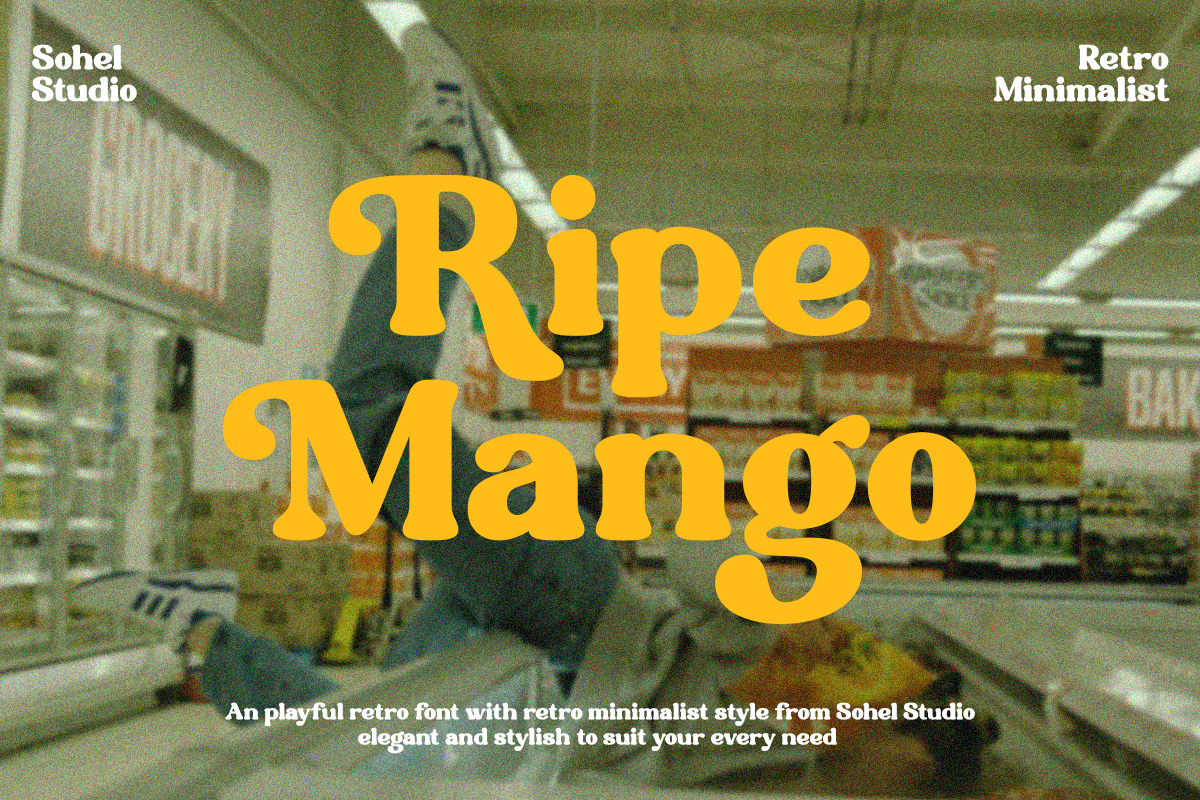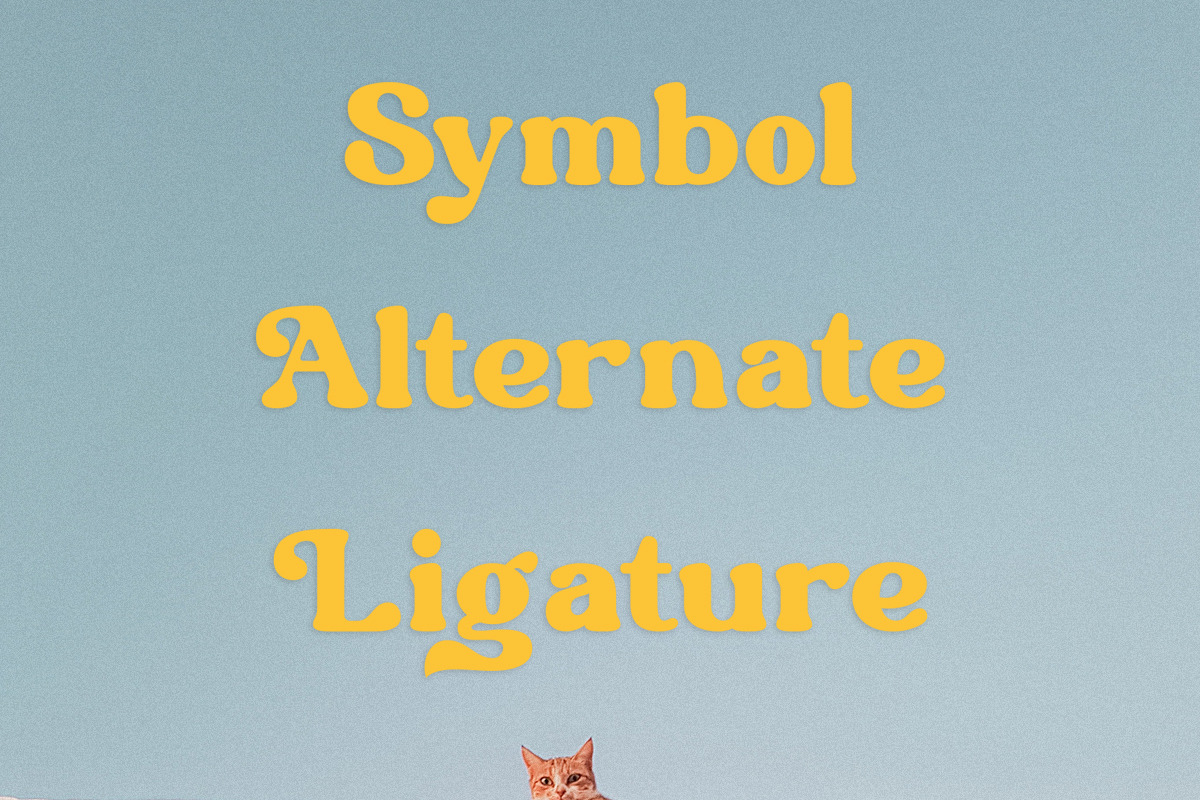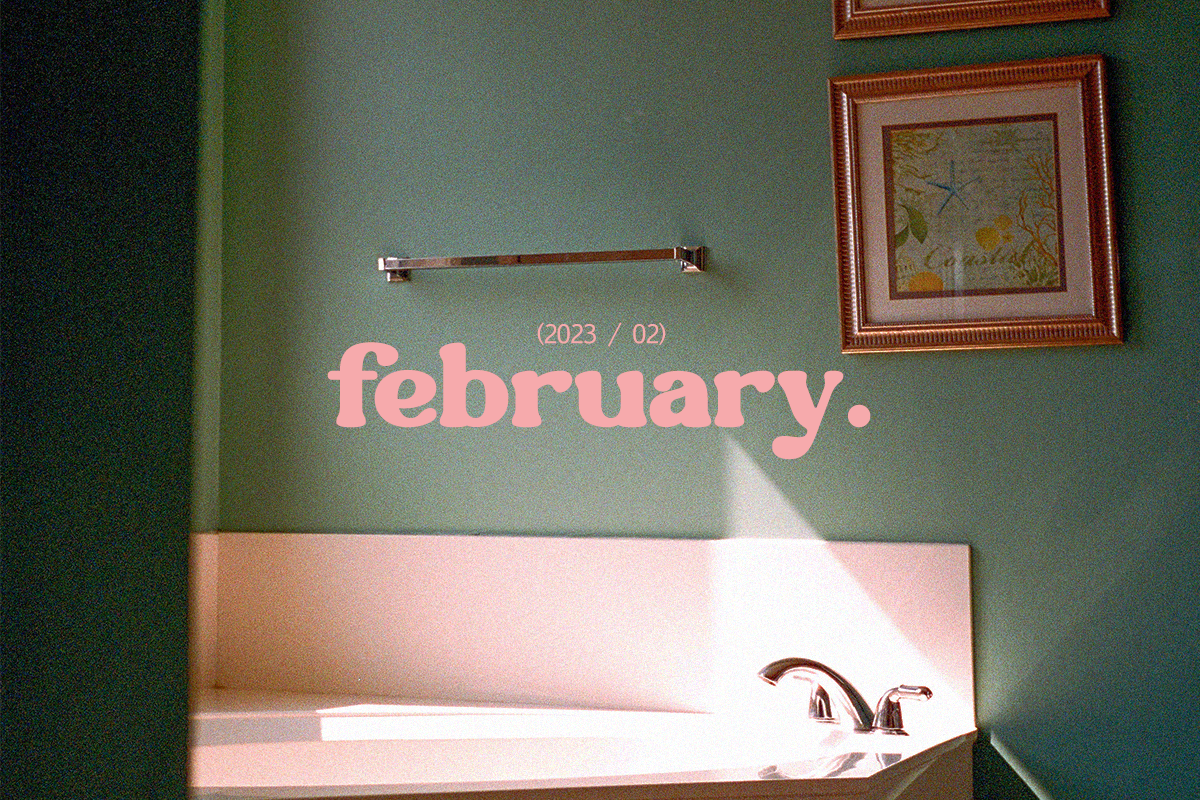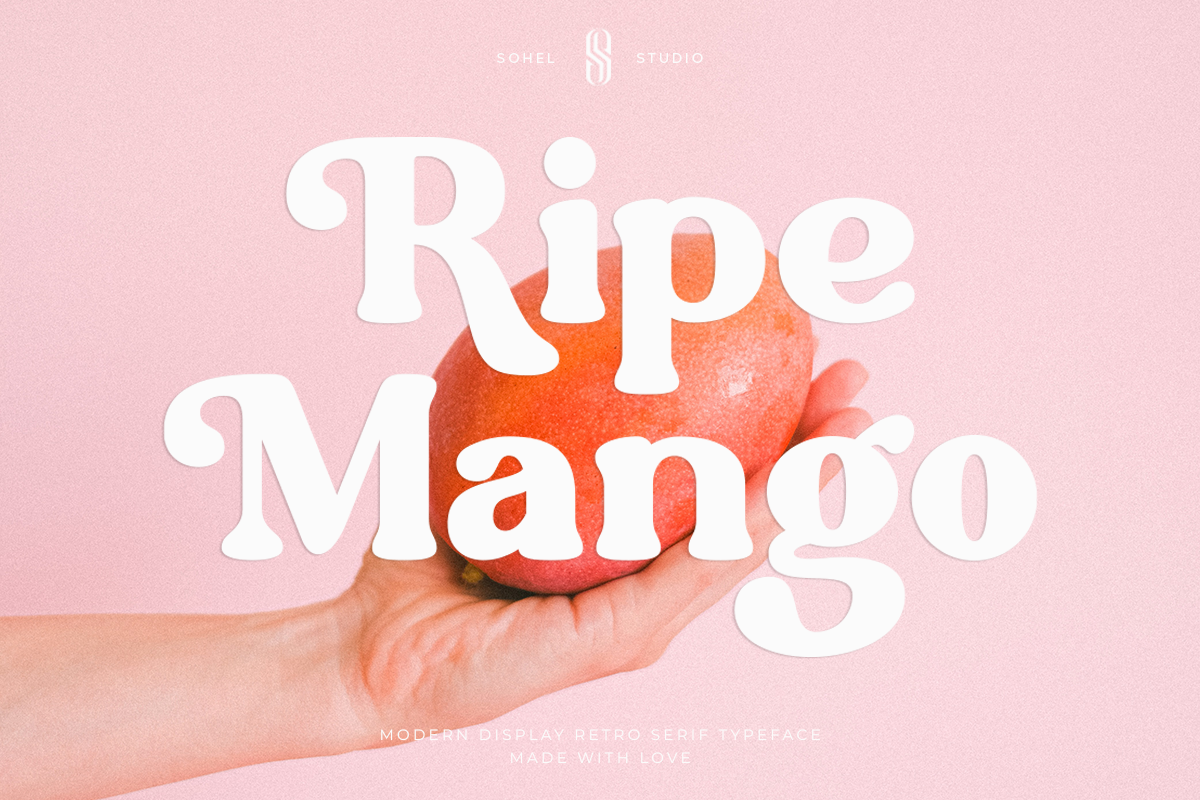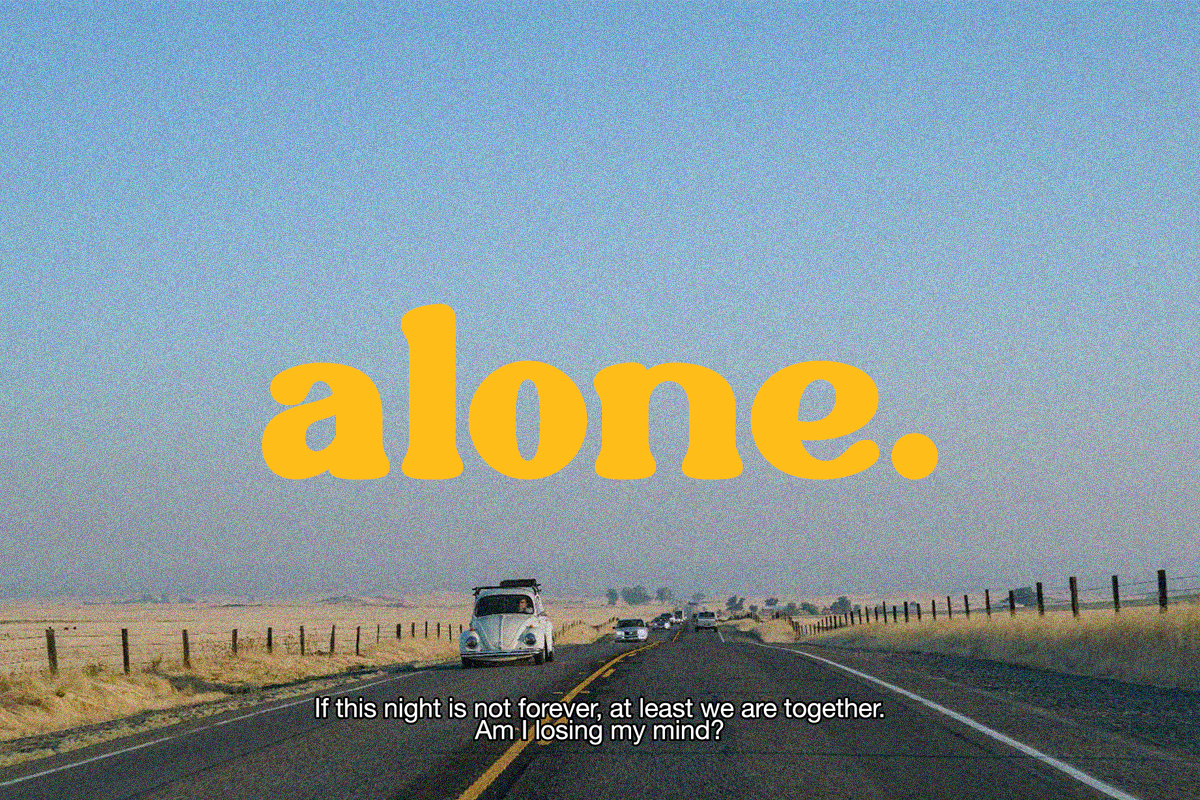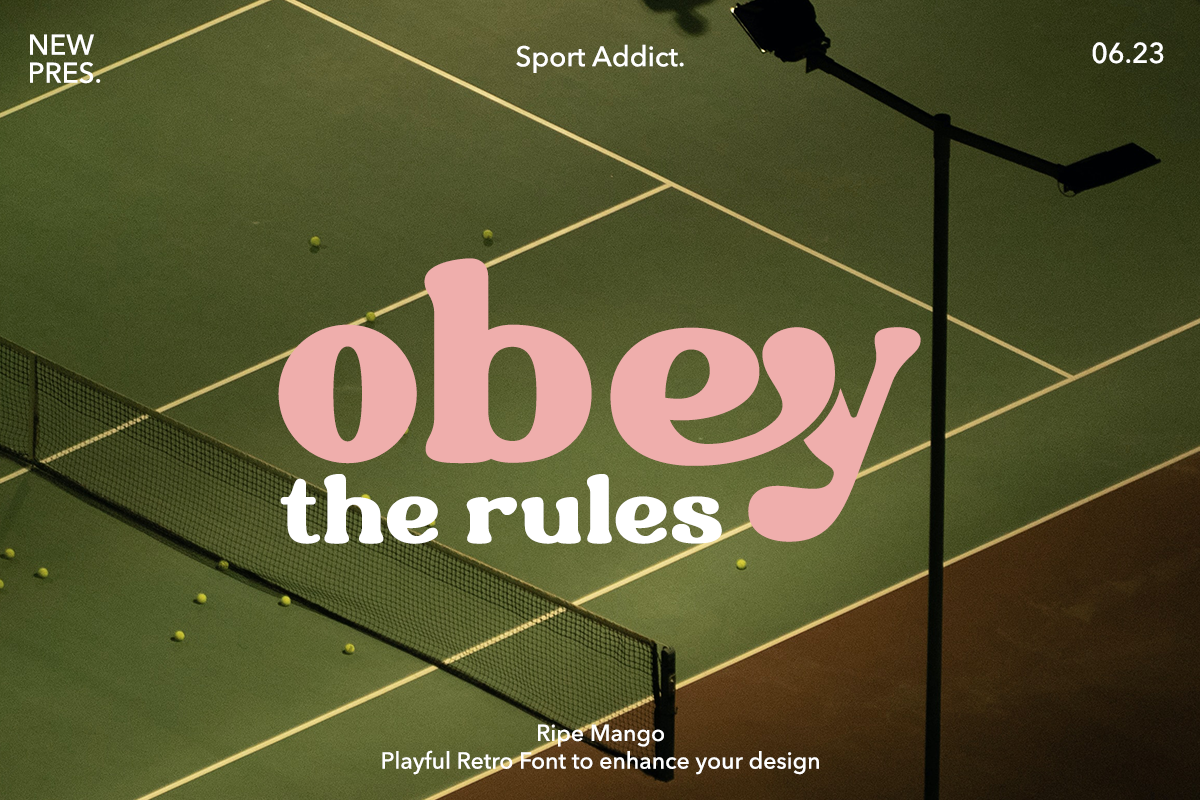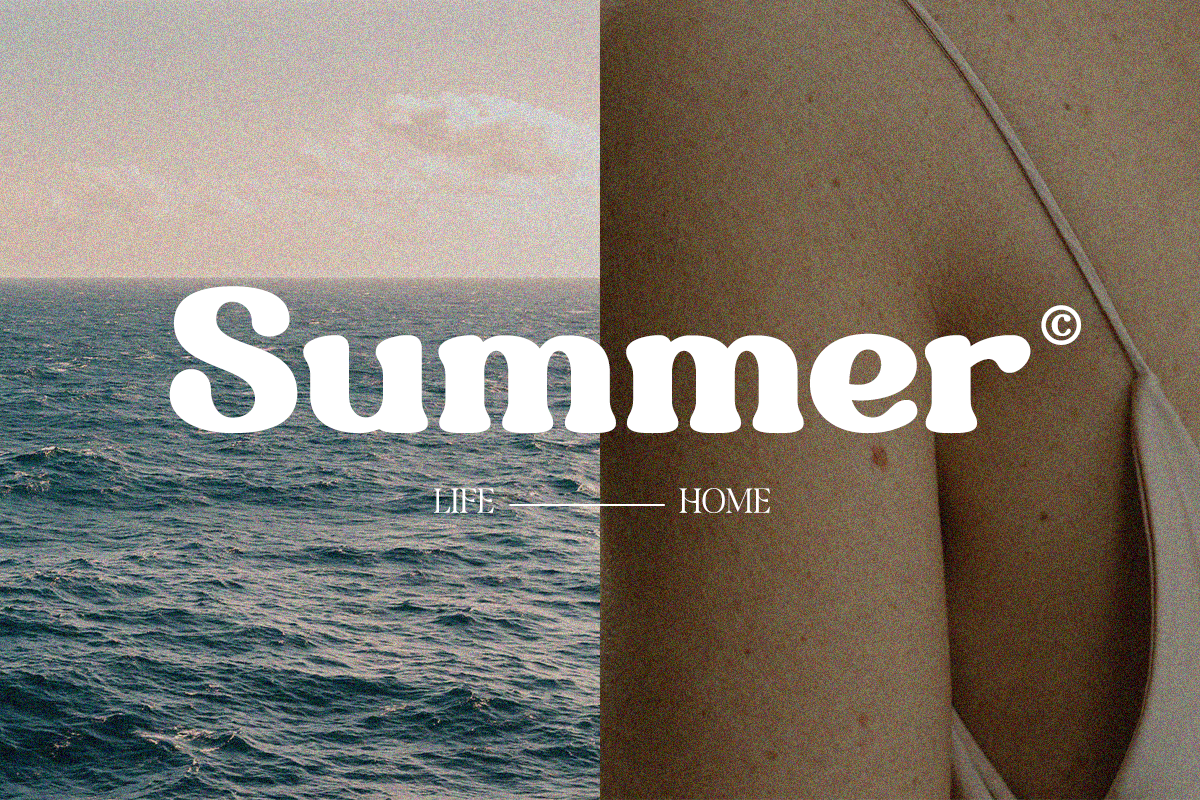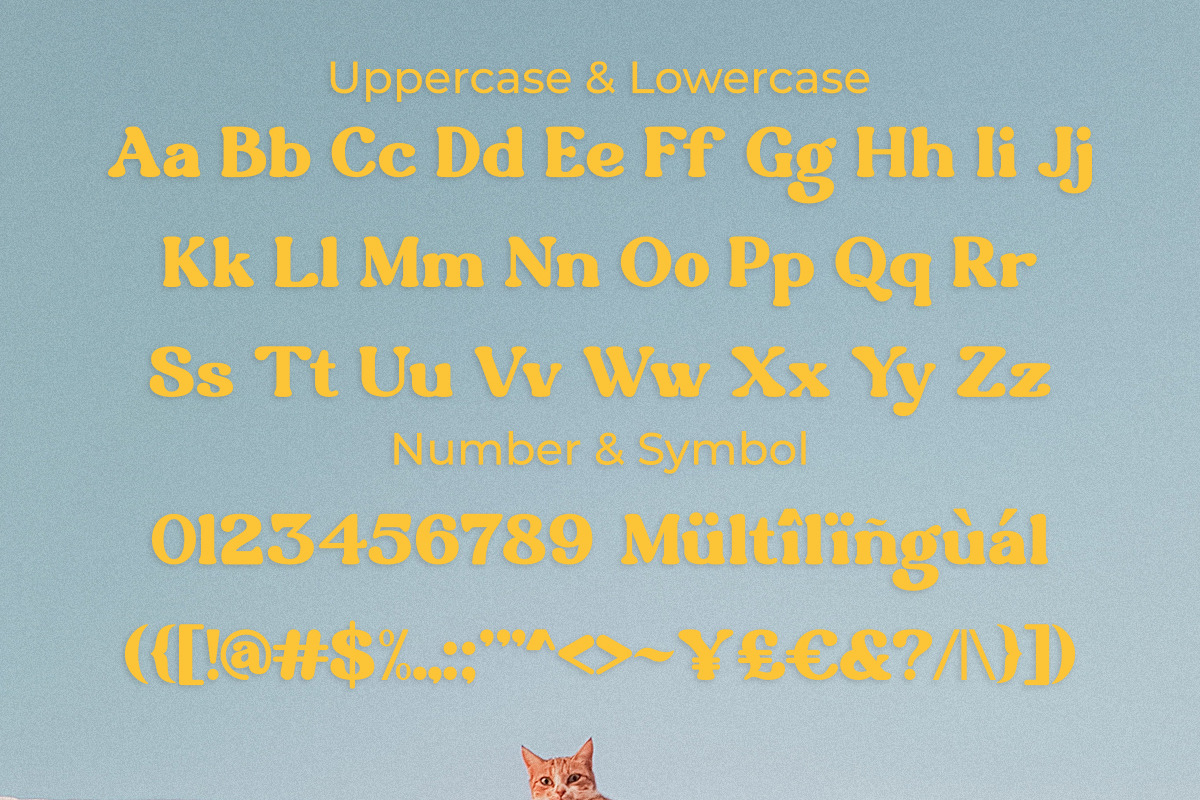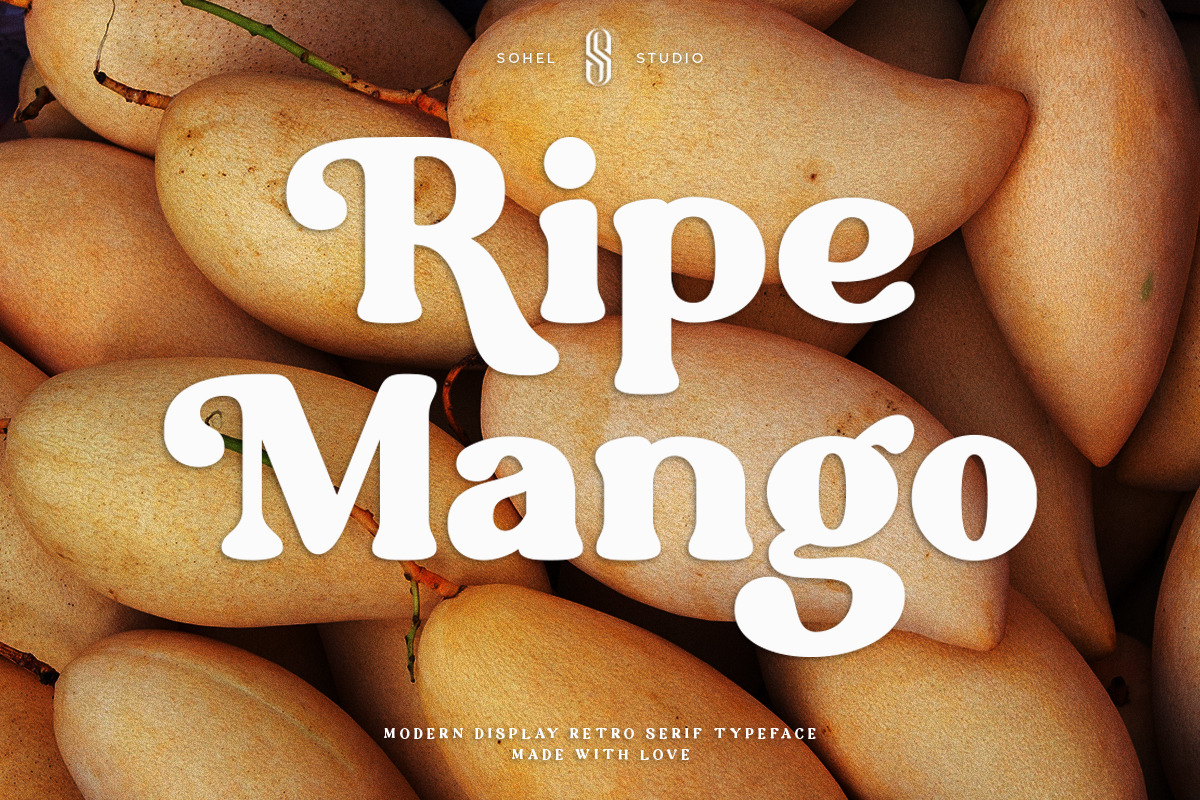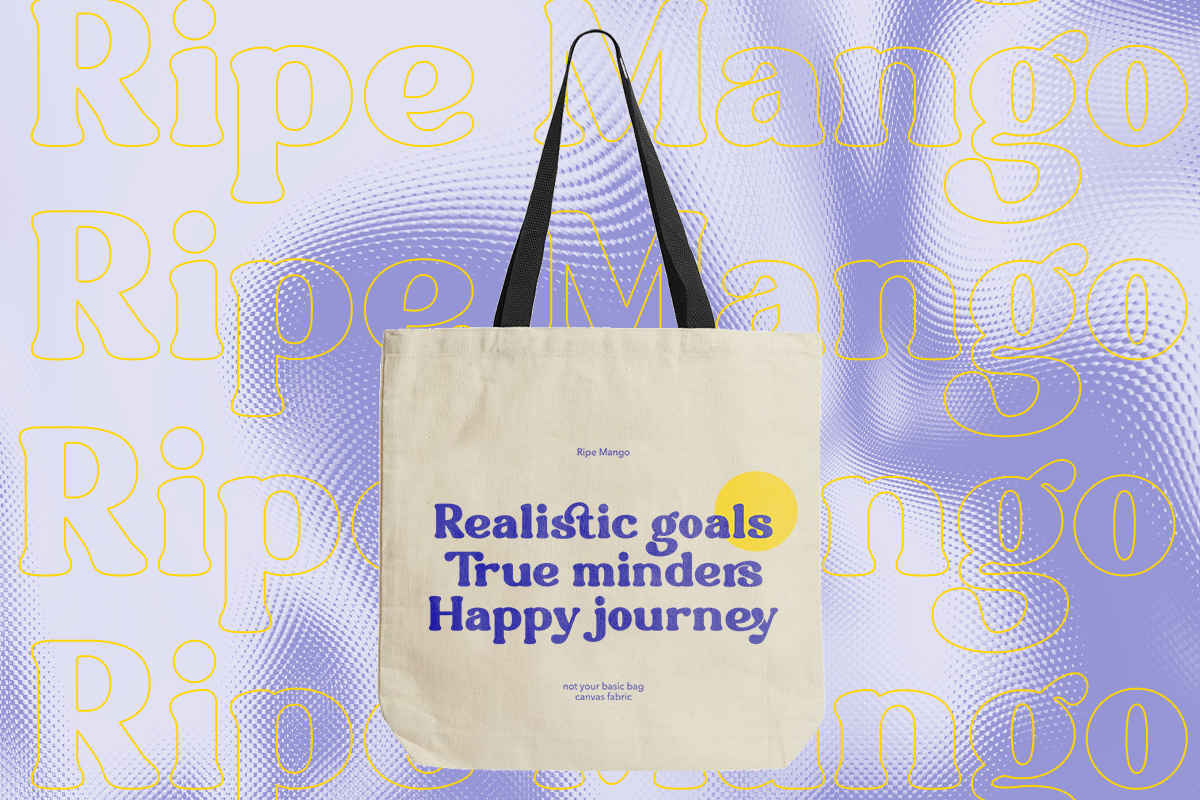
Ripe Mango - Header & Banner Font
Ripe Mango is a retro display serif font that exudes a classic charm and bold character. With its design inspired by retro styles, this font brings an elegant touch and evokes a sense of the past. Each letter is meticulously crafted with careful attention to detail and proportion, resulting in a visually appealing and unique appearance.
Ripe Mango is perfect for projects that require a vintage feel, such as posters, logos, packaging, and promotional materials that aim to capture a nostalgic and sophisticated atmosphere. This font will add a special touch to your designs and captivate viewers with its retro allure and distinctiveness.
Ripe Mango Features:
- 4 Weight (Regular, Slant, Semi Bold, Outline)
- Uppercase And Lowercase
- Alternates And Ligature